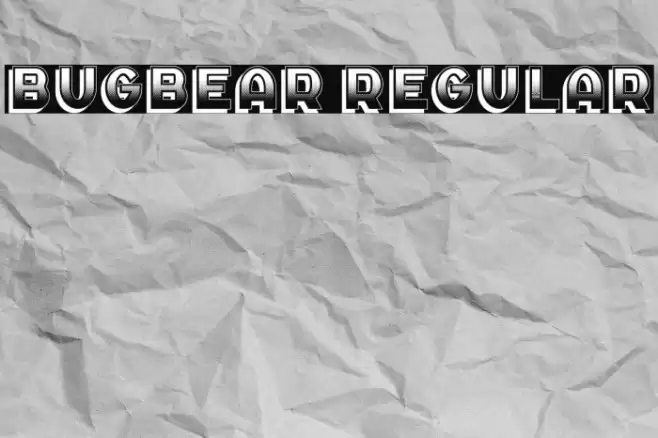
Bugbear Regular Font
Bugbear Regular Description
This font features a bold, decorative style with a three-dimensional effect achieved through shading and shadowing. The characters are uppercase and numerals, each with a distinct blocky appearance that gives a sense of depth. The design incorporates a dotted pattern within the letters, adding texture and visual interest. The font's strong geometric shapes and bold lines make it stand out, suitable for eye-catching designs. The special characters maintain the same bold and textured style, ensuring consistency across all glyphs.
A bold, decorative font with a 3D effect and dotted texture from Decorative fonts.
- Proposed Projects: Ideal for posters, headlines, logos, and any design requiring a strong visual impact.